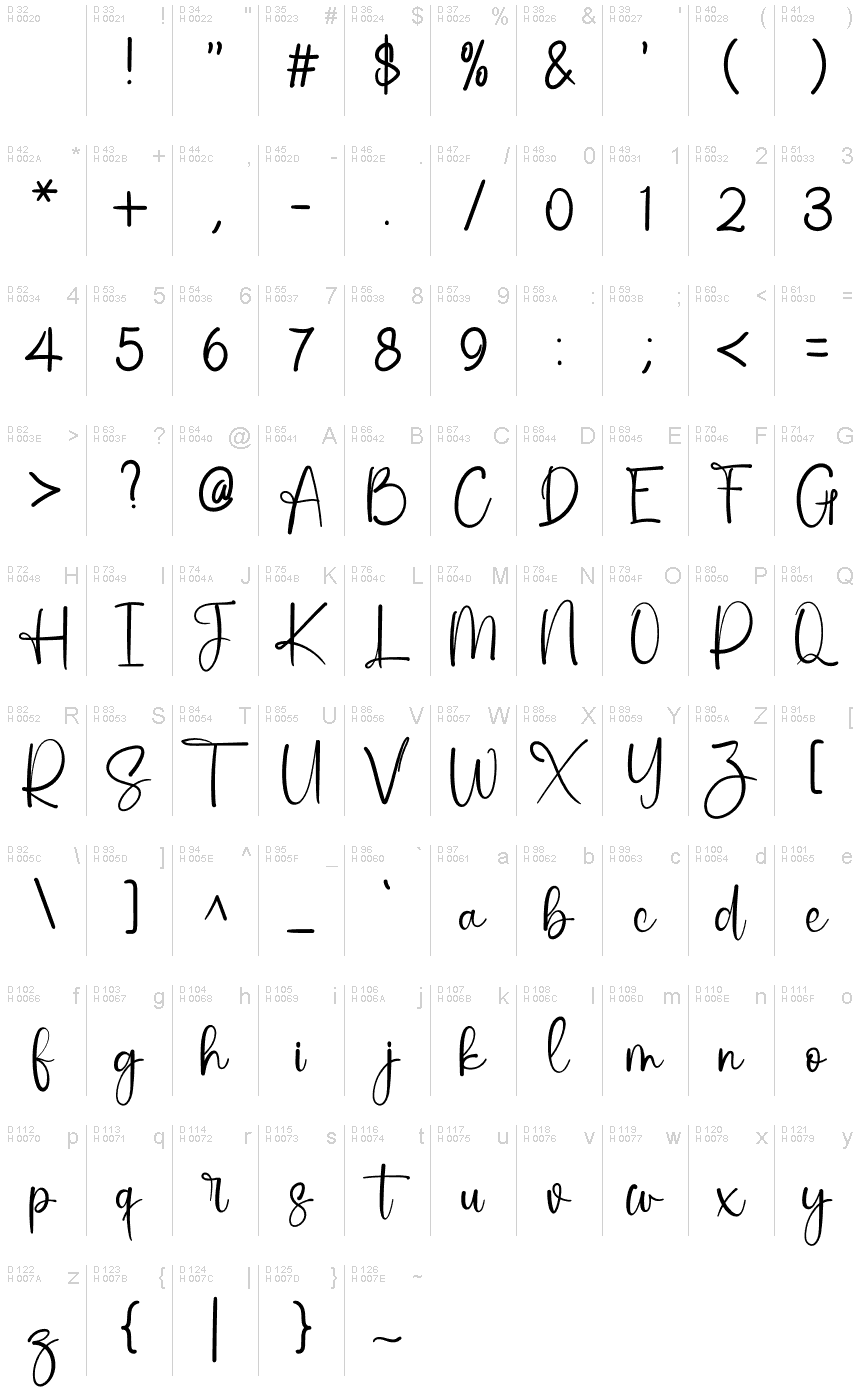
Ukraine
The Ukraine font, designed by Gunawan, is a lovely handwritten typeface with a semi-light weight. Its elegant and flowing design makes it perfect for various projects that require a touch of charm and personality.
Whether you're crafting invitations for a romantic wedding, designing heartfelt greeting cards, or creating beautiful blog headers, the Ukraine font will add a delightful and whimsical touch. Its versatility also makes it suitable for children's book illustrations, feminine branding materials, or even customized merchandise like mugs or t-shirts.
Bring your creative projects to life with the Ukraine font's graceful and enchanting style.